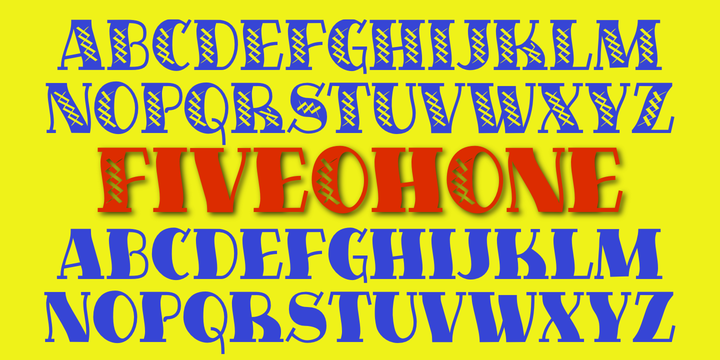
This caps-only font has extreme contrast between the thick and thin strokes. It has a carefree, wobbly look. The two fonts in the package contain four sets of upper case letters; they differ in interior decoration.